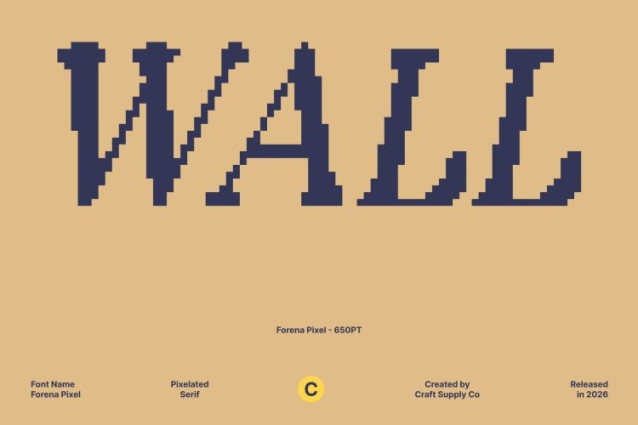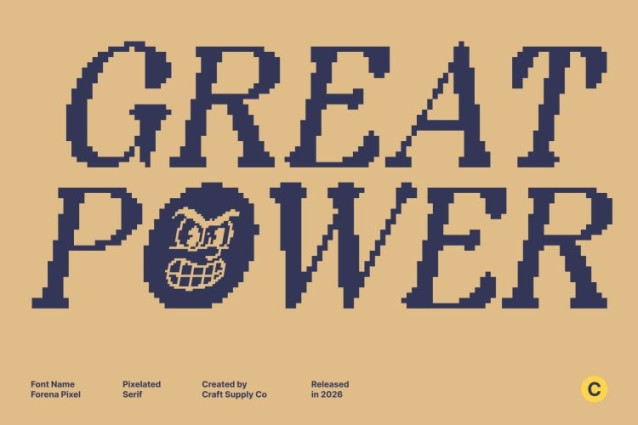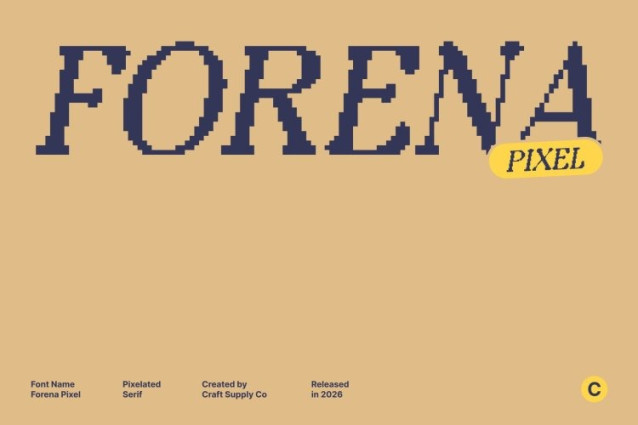
Forena Pixel Font
Forena Pixel Font This is a modern round serif typeface that blends refined sophistication with a distinctive pixelated aesthetic. Its clean structure and balanced proportions create a contemporary look, while the pixel-based construction introduces a subtle digital character that feels both modern and nostalgic.
High-Contrast Sophistication
Featuring a high-contrast design, this font delivers a strong sense of elegance and visual hierarchy. The interplay between thick and thin strokes enhances readability while adding a luxurious, editorial quality, making it ideal for projects that demand refinement and clarity.
Rounded Serif with Digital Warmth
The rounded serif details soften the overall structure, adding warmth and approachability to its modern form. Combined with sharp pixel edges and a rigid bitmap foundation, this font achieves a unique harmony between softness and precision.
Versatile for Modern Use
This font adapts seamlessly across branding, editorial layouts, packaging, and digital platforms. Its versatile design ensures consistent impact in both print and screen-based projects. Elegant yet distinctive, this is a perfect choice for designers seeking modern sophistication infused with a refined pixel-art charm.